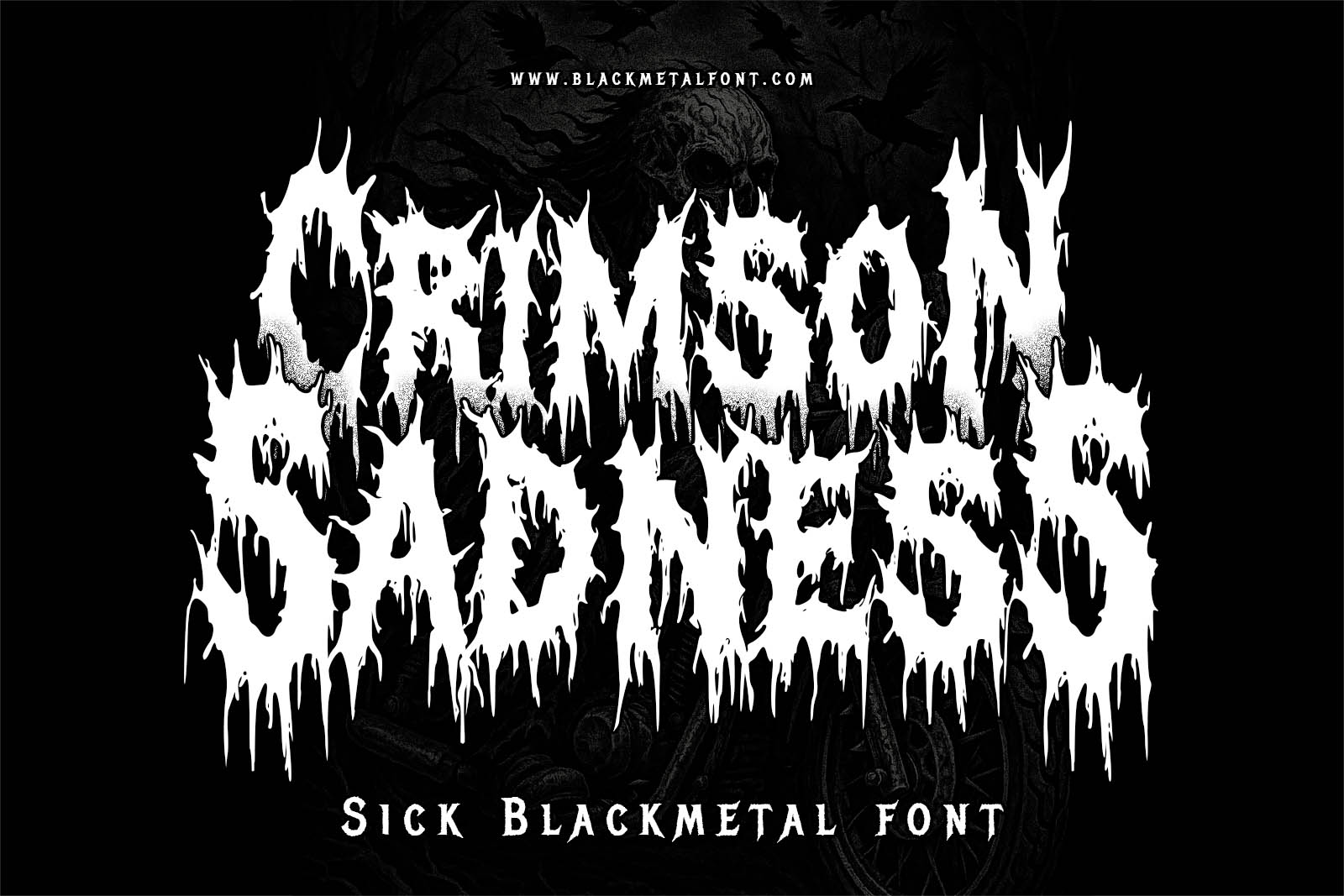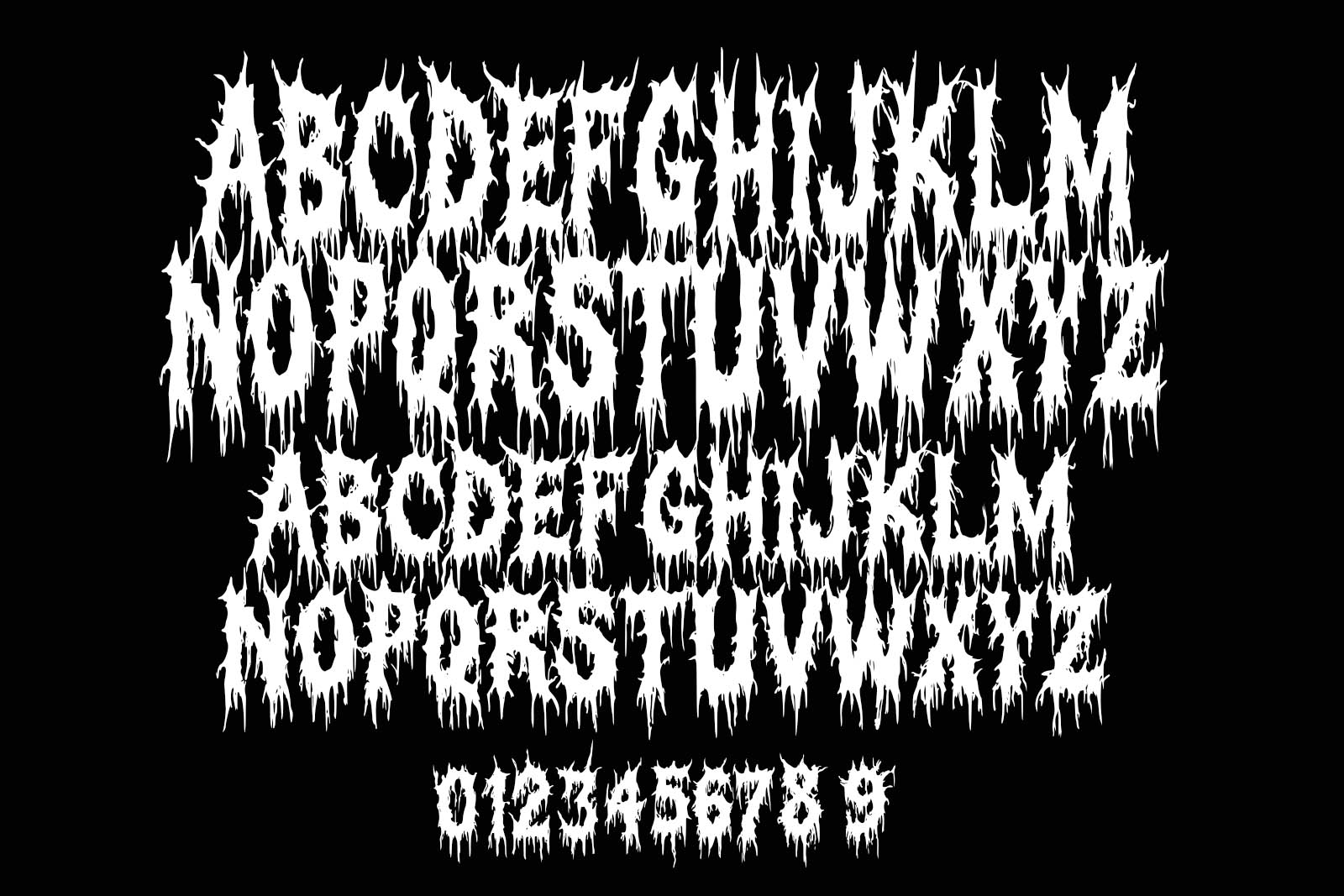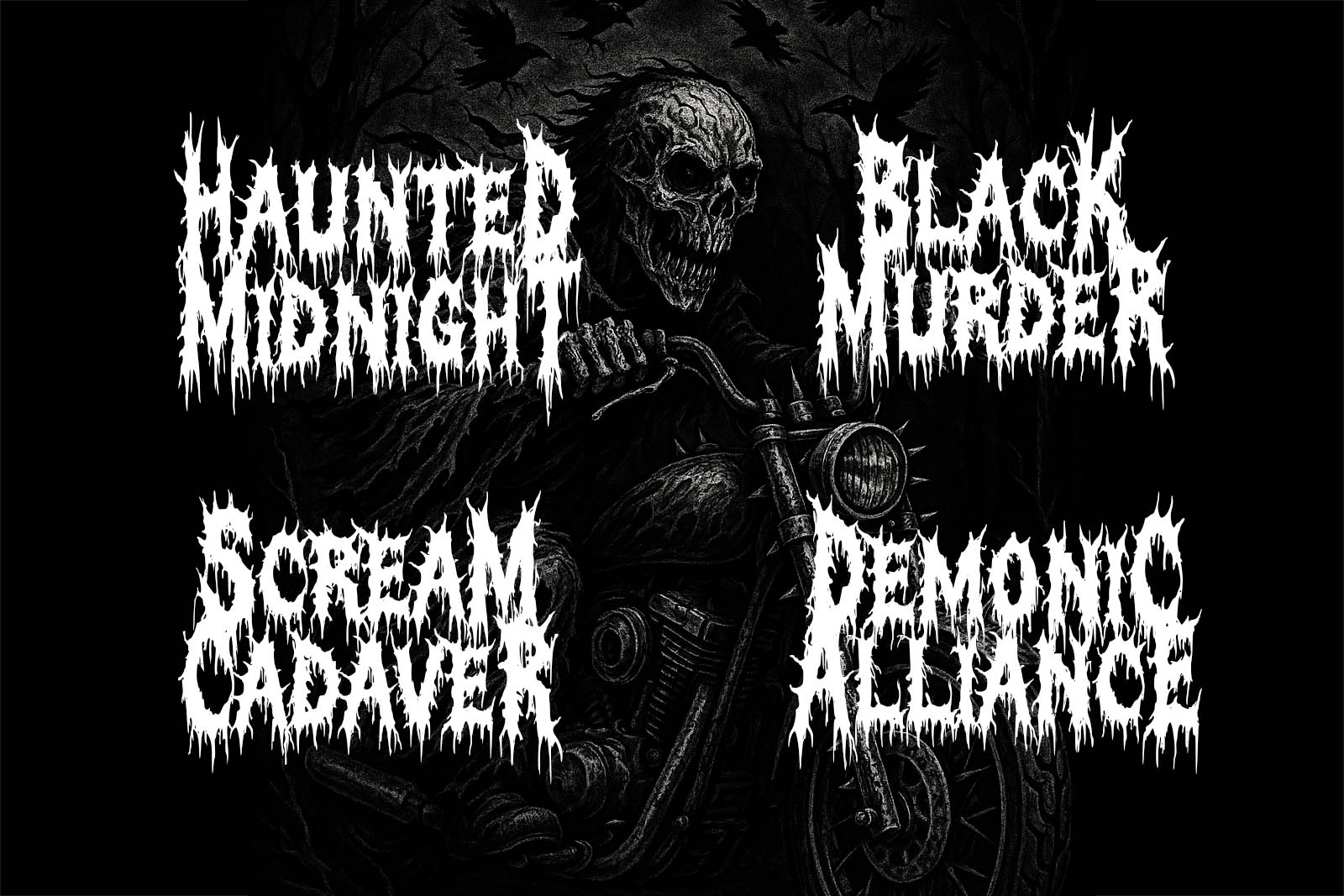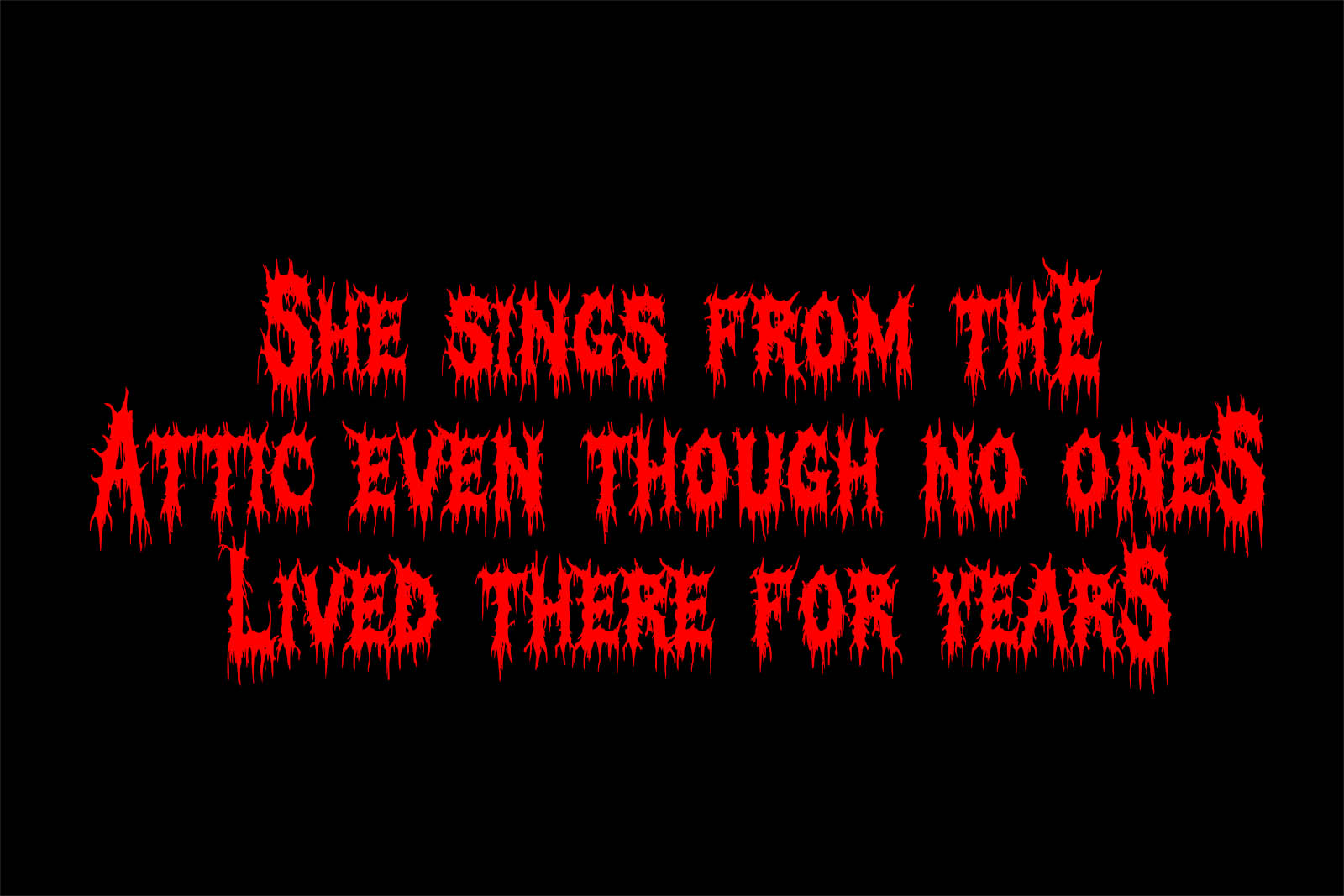
Crimson Sadness – Sick Blackmetal Font
Crimson Sadness is a brutally raw black metal font dripping with despair, darkness, and decay. Inspired by emotional trauma, haunted memories, and the twisted chaos of the underground, this typeface features jagged, melting characters that look like they were carved in agony. Each letter bleeds with a chaotic horror aesthetic—perfect for metal band logos, deathcore posters, gothic merch, and Halloween designs.
Whether you're designing an album cover, a dark-themed shirt, or horror-based branding, Crimson Sadness delivers unrelenting visual intensity. Its aggressive appearance and dripping form evoke pain and madness—making it the ultimate choice for sick visuals with a soul-crushing edge.
Perfect for:
• Black metal and death metal band logos
• Horror and Halloween-themed designs
• Dark music album covers
• Occult or gothic merchandise
• Underground zines and posters